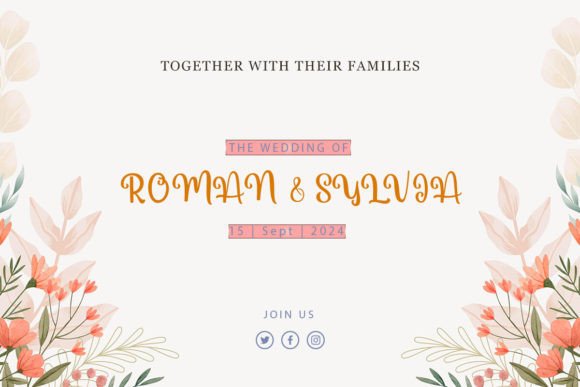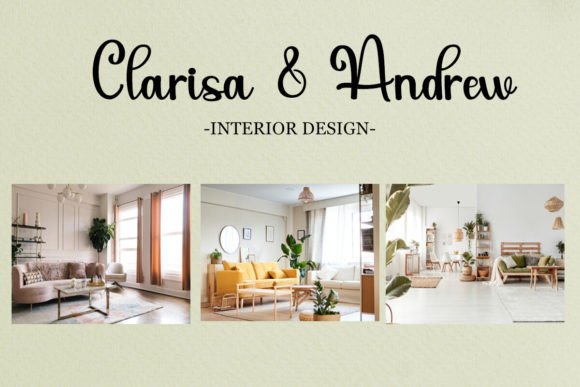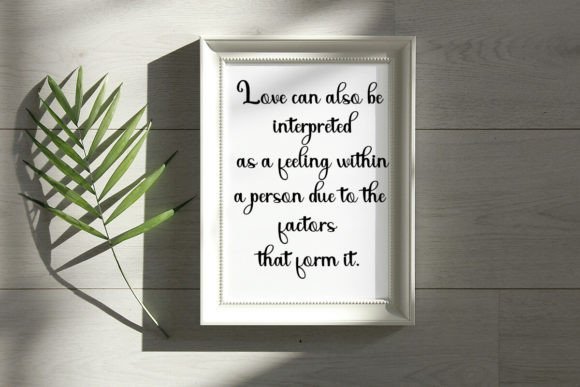
Introduction to Guinevere Font
Guinevere script is a modern calligraphy design including Regular.
👤 Author Naiza Studio
This font is casual and beautiful with swashes Can be used for various purposes such as logos, product packaging, wedding invitations, branding, headlines, signage, labels, signatures, book covers, posters, quotes, and much more.